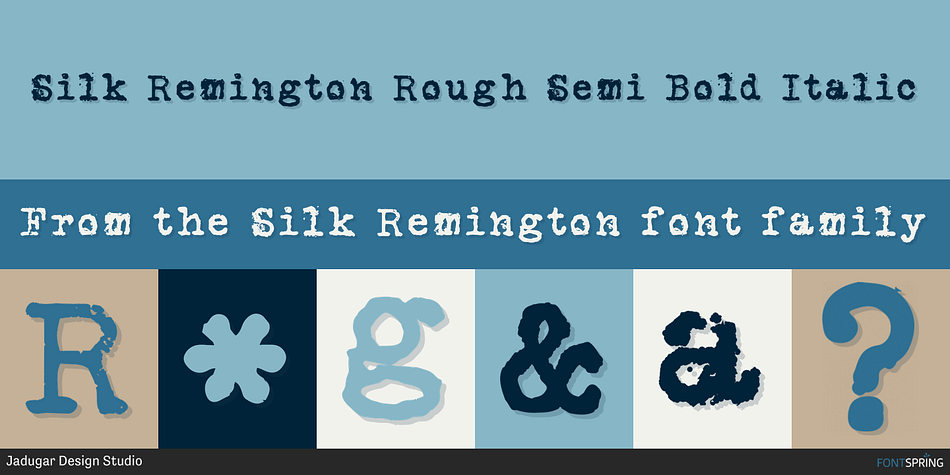
Silk Remington Rough Semi Bold Italic
Silk Remington is a grunge and typewriter font family. This typeface has seven styles and was published by Jadugar Design Studio.
**Introducing Silk Remington: The Classic Touch Reimagined**
Step into a world where nostalgia meets innovation with **Silk Remington**, the latest masterpiece from Jaduger Design Studio. This new typewriter font captures the authentic essence of a classic typewriter, allowing your words to resonate with the charm of a bygone era.
**Silk Remington** boasts an impressive repertoire of seven distinct weights, each crafted to perfection, ensuring that you can achieve an unparalleled old-fashioned typewriter aesthetic in your designs. Whether you’re penning a heartfelt letter, crafting a vintage-inspired poster, or designing a contemporary publication with a touch of history, this unique typewriter font offers the versatility you need to bring your creative visions to life.
Despite its classic flair, **Silk Remington** embraces simplicity, featuring only the essential basic Latin characters. This streamlined focus enhances its utility without compromising that timeless look and feel that draws us to traditional typefaces.
Embark on a typographical journey and make your mark with a font that echoes the rhythm of the past. We pride ourselves in presenting a typewriter font that stands out from the rest, providing you with a rare find in today’s market—a premium typewriter font extensive in range and classic at heart.
Elevate your designs with **Silk Remington**: where every letter tells a story, and every word reverberates with history. Discover it today and let your creativity type in style!